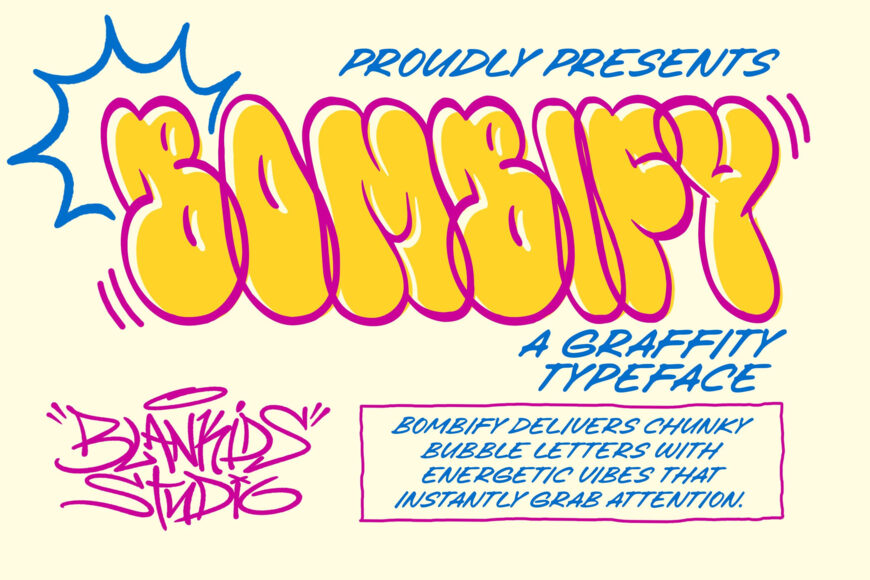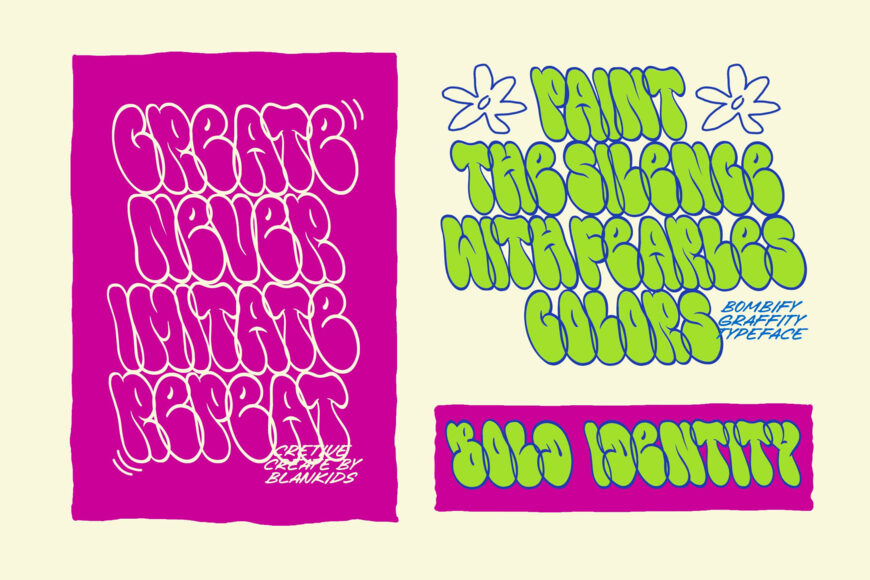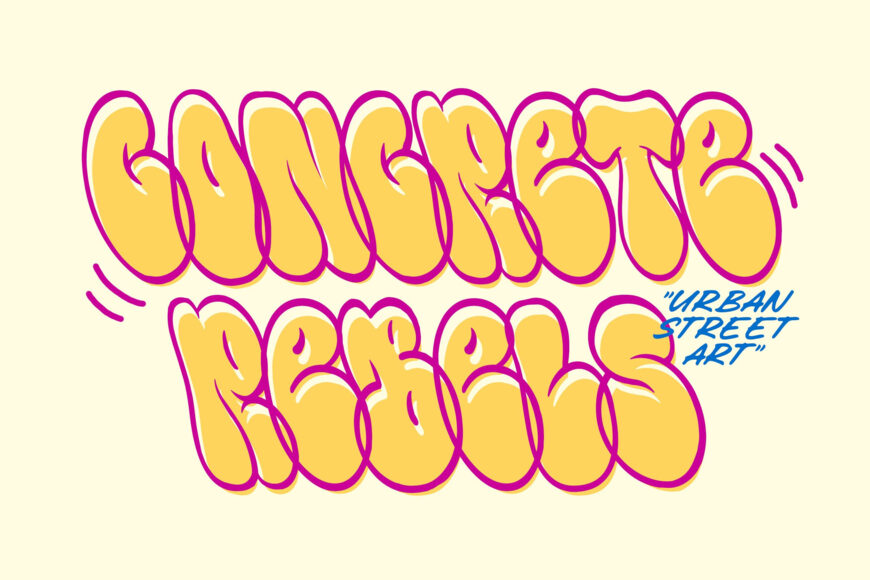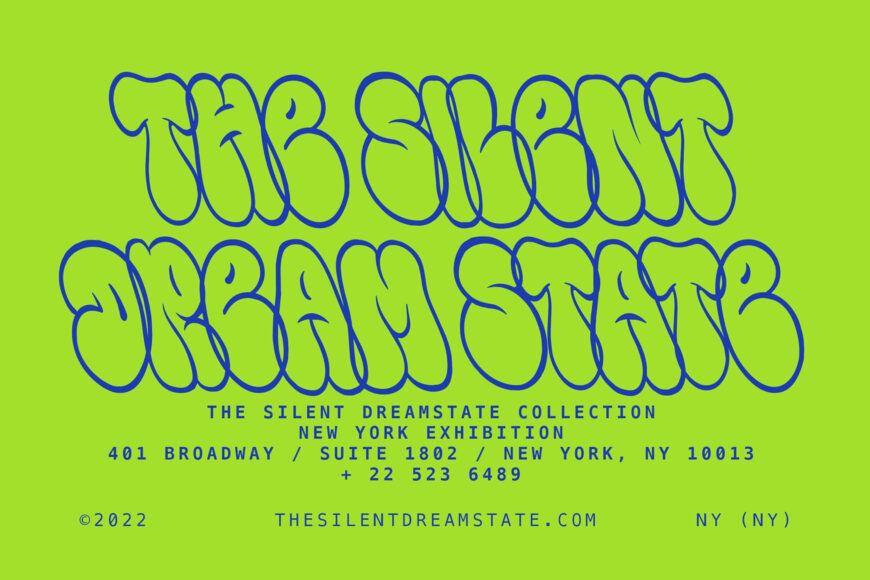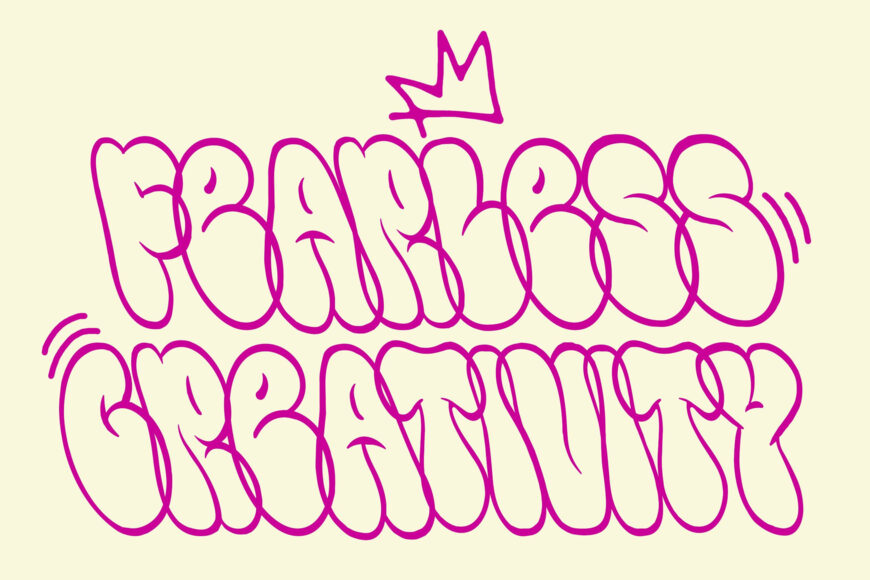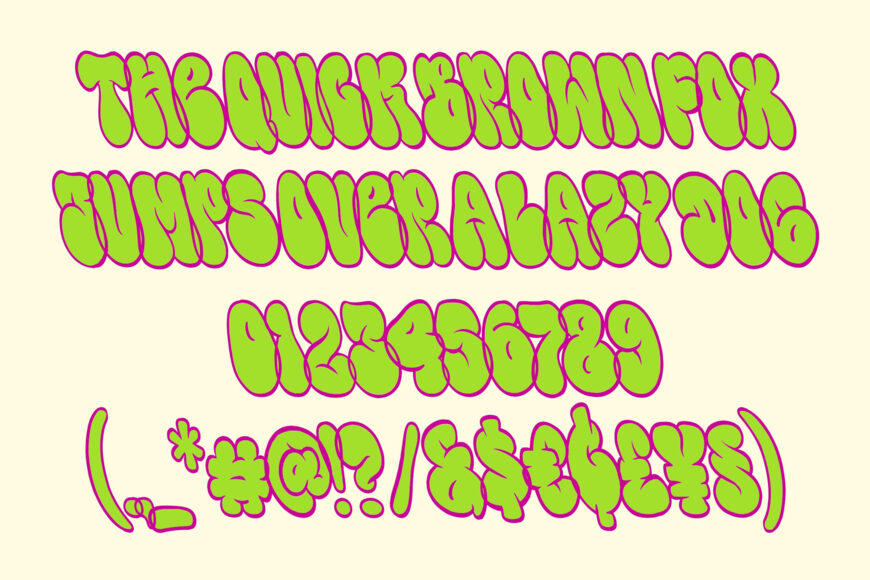
Bombify is a bold graffiti bubble typeface packed with chunky curves, playful energy, and authentic street-inspired character. Designed to make every word pop, this typeface combines classic bubble lettering with a modern urban twist, making it perfect for projects that demand attention and personality.
Whether you’re creating eye-catching posters, streetwear branding, social media graphics, album covers, YouTube thumbnails, stickers, packaging, or bold logo designs, Bombify delivers a fun and expressive look that instantly stands out. Its rounded shapes and graffiti influence create a friendly yet impactful style that’s easy to read while maintaining an unmistakable urban aesthetic.